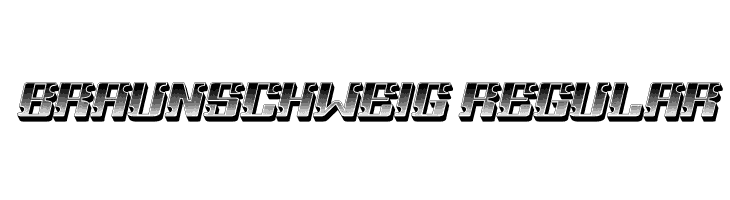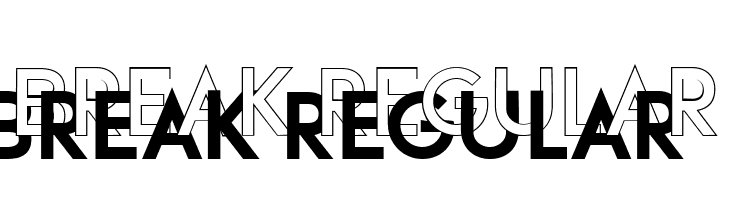
A bold, retro 3D font with a dotted texture and shadow effect.
A bold, calligraphic script font with ornate flourishes and dynamic curves.
A bold, modern font with a strong vertical emphasis and unique character designs.
A modern, geometric font with bold, angular characters and consistent stroke width.
A classic, elegant font with a modern italicized style.
An elegant and flowing script font with interconnected letterforms.
A playful, narrow font with consistent stroke width and artistic flair.
A playful handwritten font with a casual and friendly style.
A modern, geometric font with a futuristic and digital aesthetic.
A bold, geometric font with a modern and striking design.